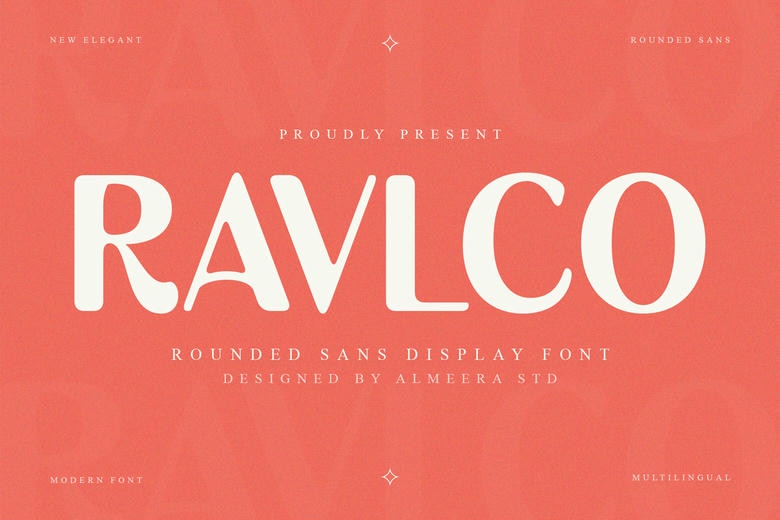
Ravlco Font
Ravlco is a modern sans-serif display font with rounded shapes that give it a friendly, contemporary feel. Its smooth curves and soft edges make it welcoming, and the design remains clear and organized. Ravlco works well for eye-catching displays, creative branding, bold headlines, and modern layouts.
Ravlco Sans Serif Font